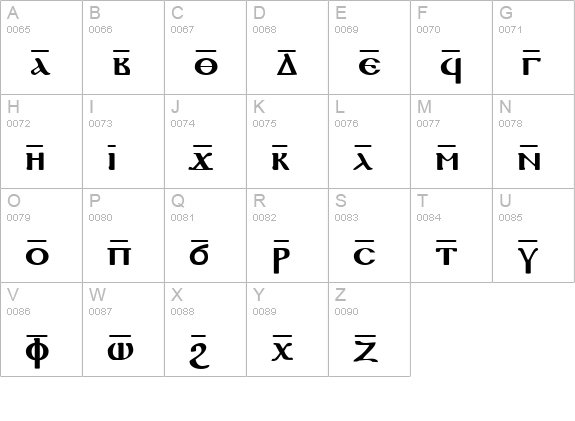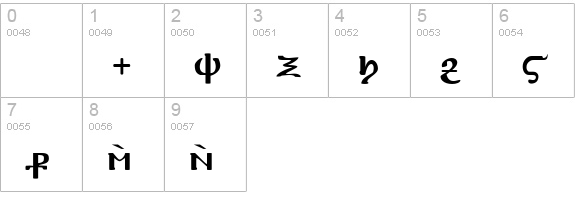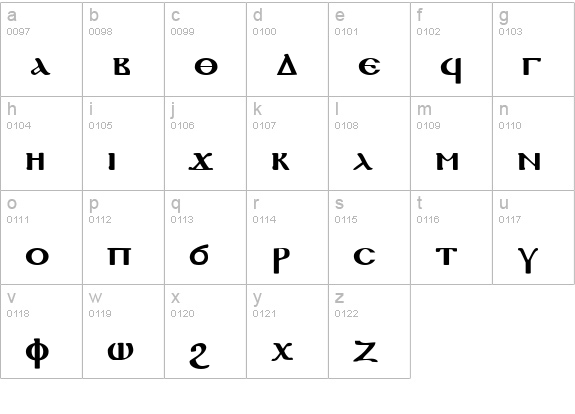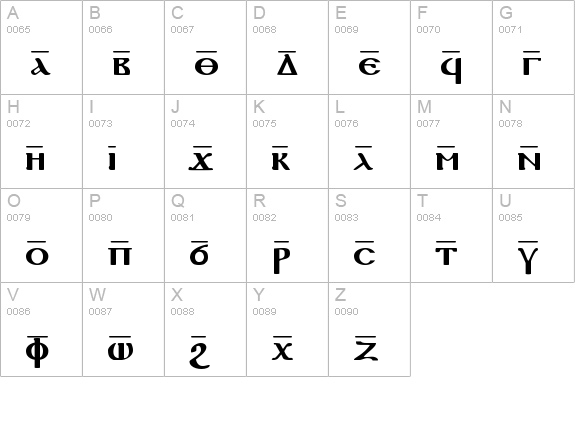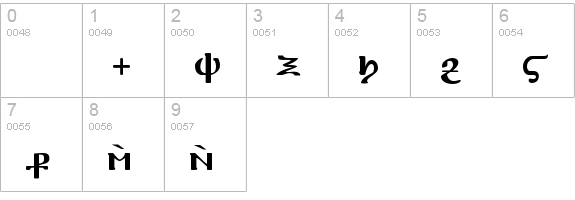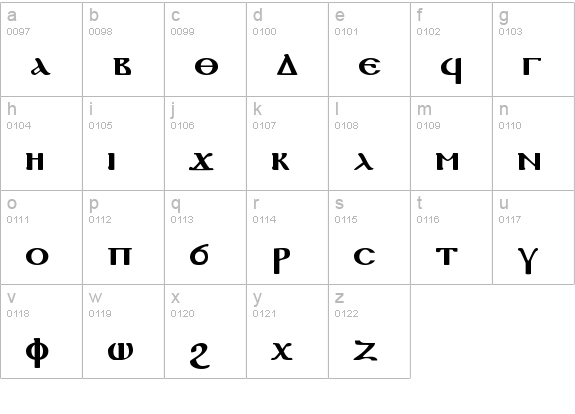
Coptic Normal Font Details
Coptic Normal is the standard, neutral variant in the Coptic typeface family \xE2\x80\x94 well suited to general body text, paragraphs, and standard typographic work.
Coptic Normal font is a beautifully crafted typeface that exudes elegance and sophistication. With its intricate details and graceful curves, this font is perfect for adding a touch of sophistication to any project. Whether you are designing a logo, creating a poster, or working on a website, Coptic Normal font will bring a touch of timeless charm to your work. What's more, Coptic Normal font is completely free to download at FontsMarket.com. This means that you can easily access this stunning font without any cost, making it a fantastic choice for both personal and commercial projects. Don't miss out on the opportunity to enhance your designs with the beauty of Coptic Normal font - download it today and start creating something truly special.